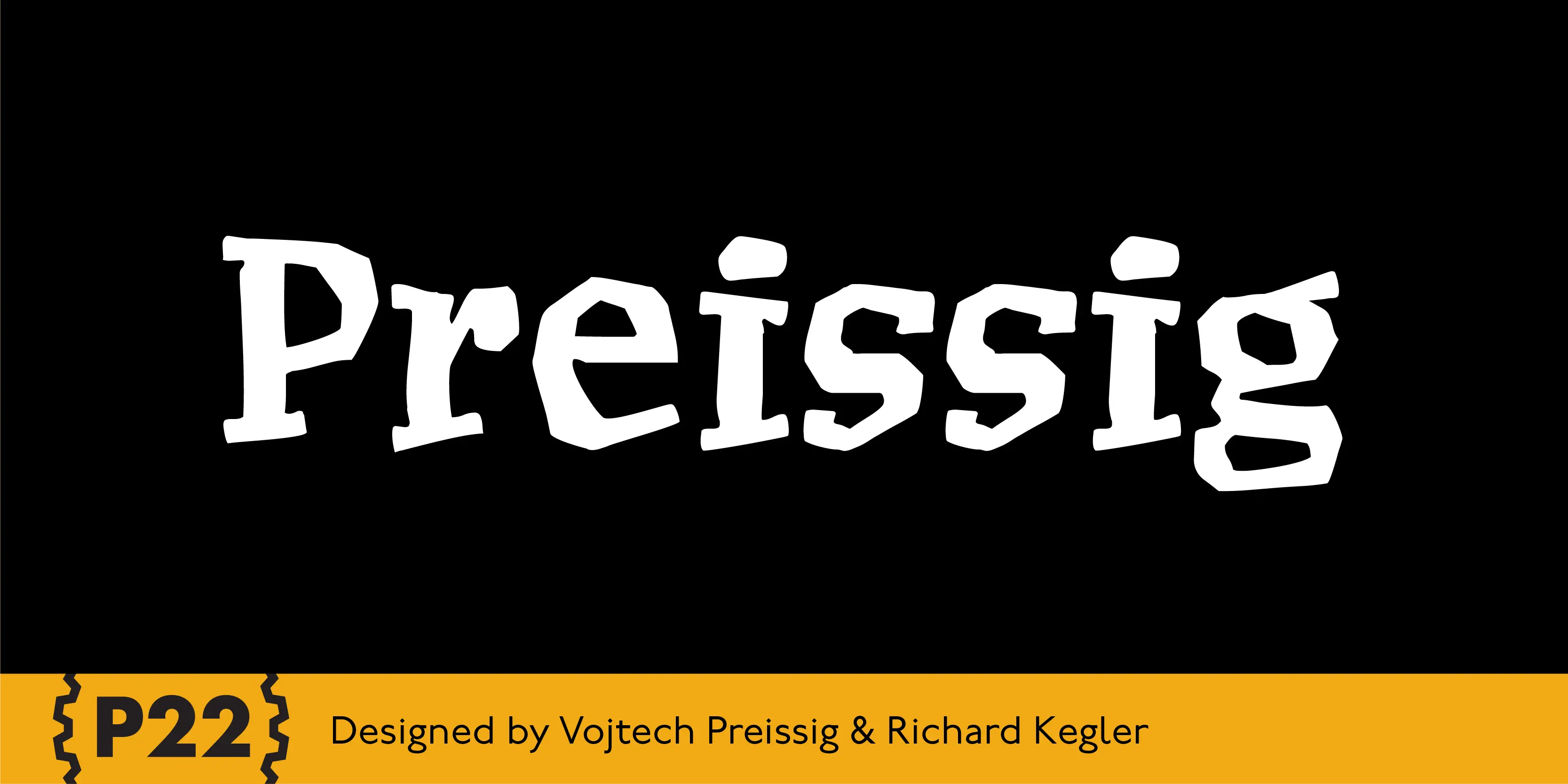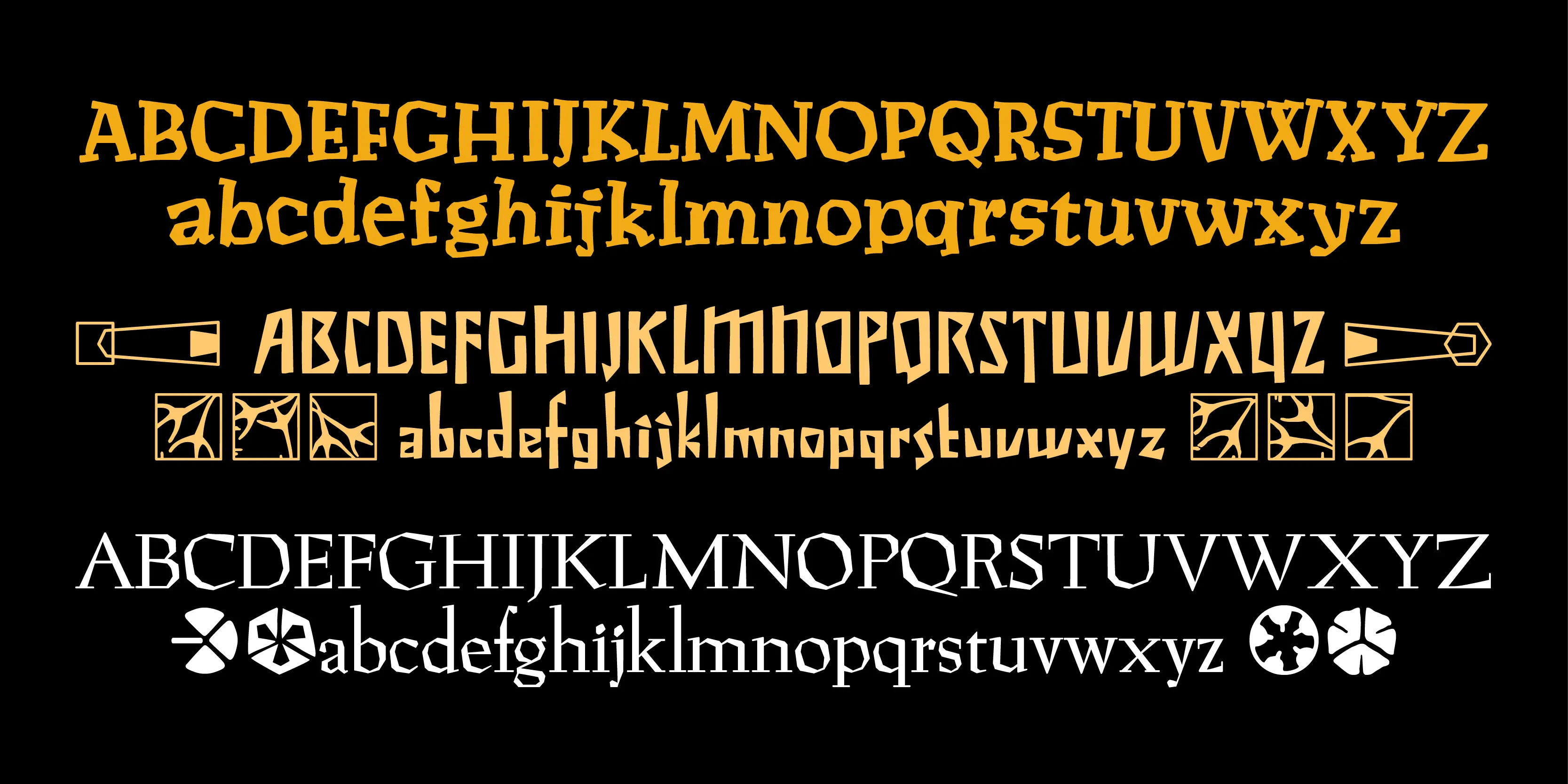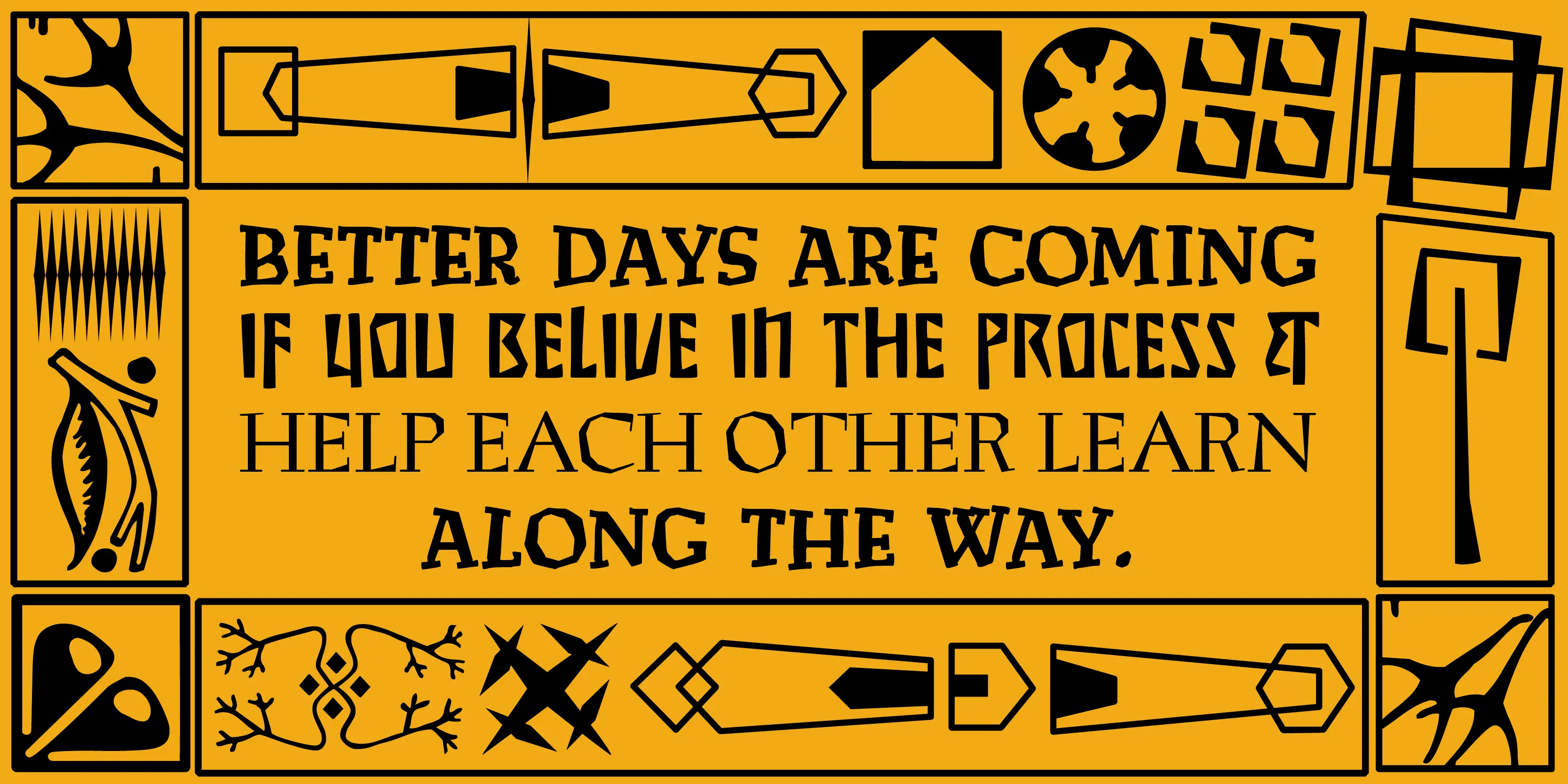
Preissig Font Family
• Preissig Lino
• Preissig Roman
• Preissig Scrape
• Preissig Extras
• Preissig Calligraphic Regular
• Preissig Calligraphic Regular Italic
Preissig
These typefaces and graphic elements are drawn from the work of Czech designer Vojtech Preissig, whose type and book designs helped define the Czech graphic arts identity of the early 20th Century. Legend has it Pressig Script cut fonts in linoleum, which served as the basis for Preissig Lino, dating about 1912 as well as Preissig Scrape circa 1914 .These alphabets show a great affinity for Script-craftsmanship without appearing too clean and combine bold experimentation with a high degree of legibility.